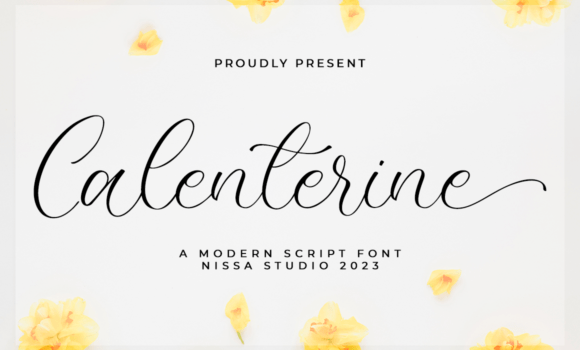
calenterine
Calenterine Font – Free Download Introduction to Calenterine Font Calenterine is a beautiful script font. 📸 Preview Gallery 6 images 📌 Product Name Calenterine Font 👤 Author NissaStudio 📂 Category Explore ⬇️ Download Calenterine Font FREE Free Download • Instant